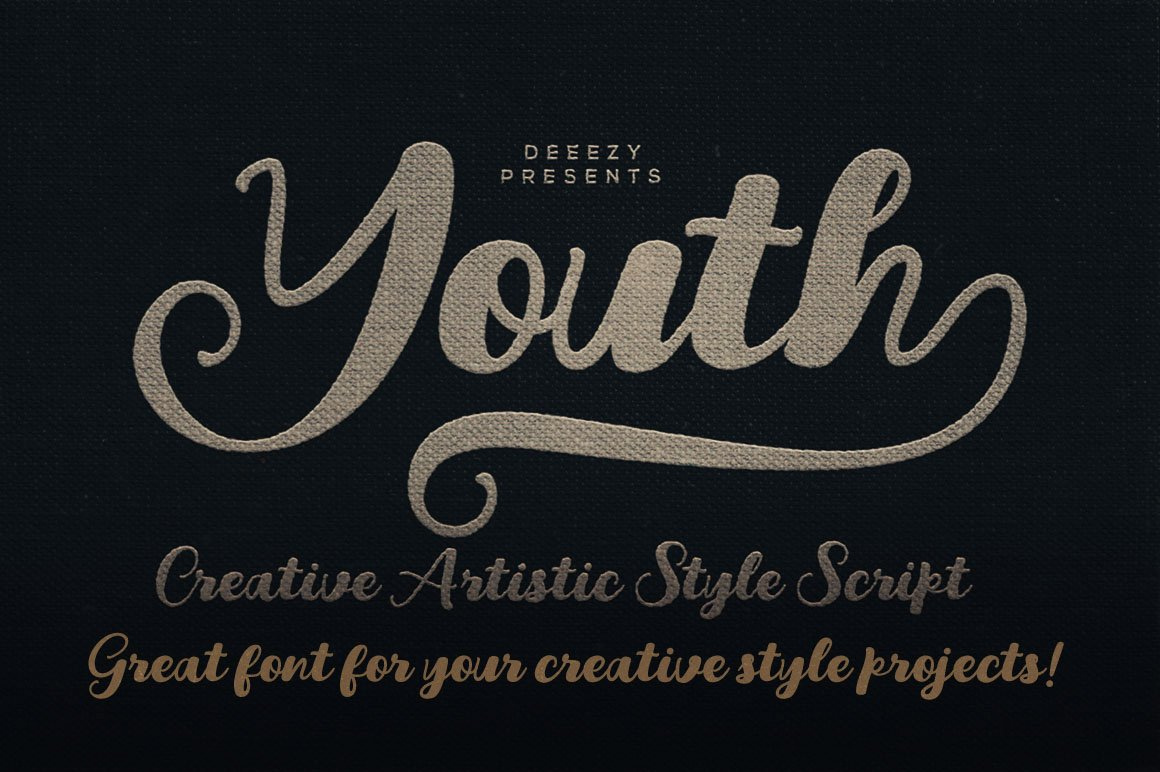
Youth Script Font
This vibrant script typeface is perfect for youth-oriented branding, teen fashion campaigns, music event posters, social media graphics, skateboard designs, street art projects, casual restaurant menus, and energetic lifestyle brand communications.
What makes this font exciting is its dynamic energy and rebellious spirit that perfectly captures the essence of youth culture and contemporary street style. The bold brush strokes and confident letter formations create an immediate sense of movement and vitality, while the authentic hand-painted appearance adds genuine urban authenticity that resonates with younger demographics seeking authentic self-expression.
The Youth Script Font family includes regular, bold, and condensed weights, along with grunge textures, urban symbols, and street-style ornaments that enhance the font's edgy appeal for comprehensive youth-focused design applications.
The compelling personality of Youth Script Font emerges through its bold confidence and unrestrained creative expression. Each character displays the natural imperfections and organic variations found in authentic street art and handmade signage, creating visual excitement and emotional connection. This genuine approach makes it particularly effective for youth hostels, skateboard shops, indie music venues, and alternative fashion brands requiring typography that communicates rebellion, creativity, and authentic self-expression.
Design professionals will appreciate this font's ability to instantly establish credibility within youth culture contexts. From concert merchandise to urban fashion campaigns, from gaming interfaces to social activism posters, Youth Script Font maintains its energetic presence while adapting to diverse creative requirements. The font's comprehensive character set includes stylistic alternates, rough textures, and urban decorative elements, ensuring complete design flexibility for projects that demand authentic youth appeal and contemporary street credibility across all communication platforms.